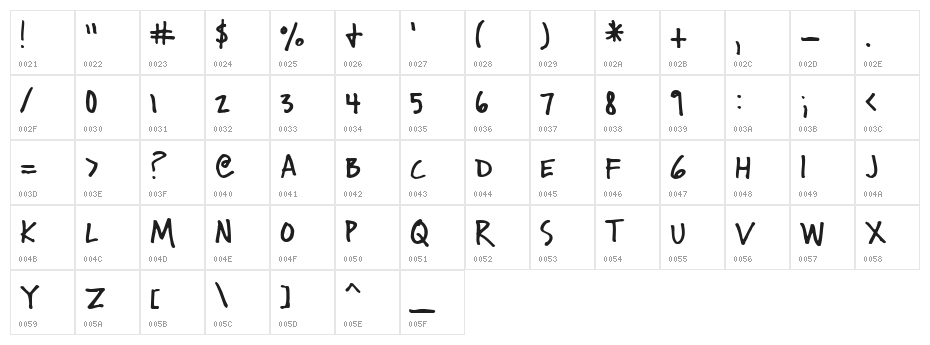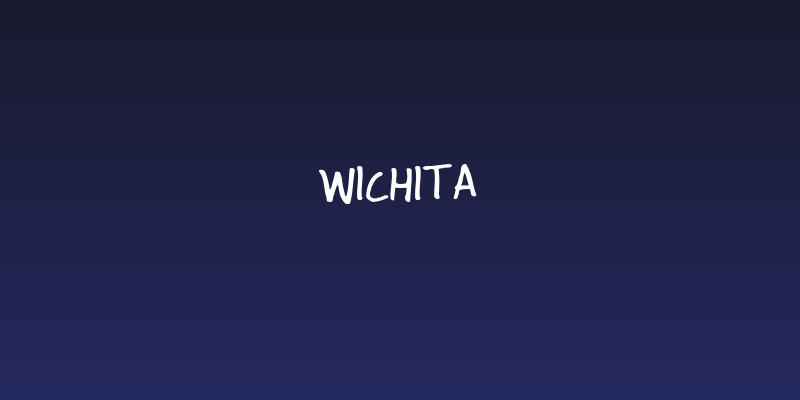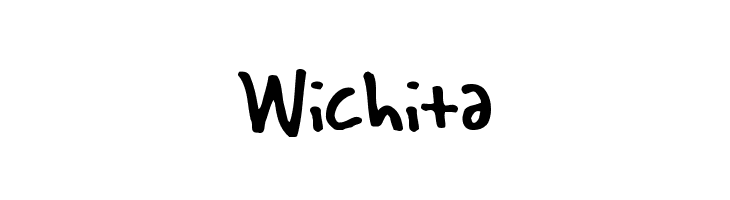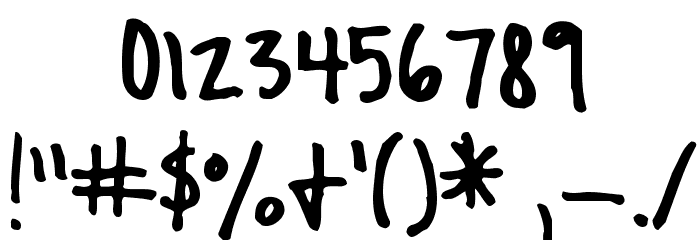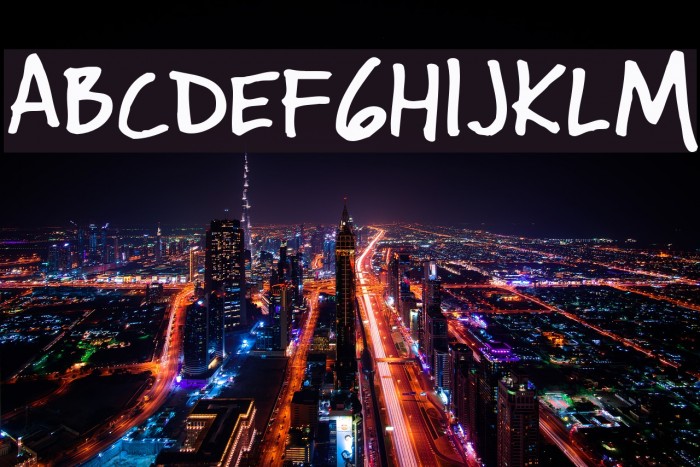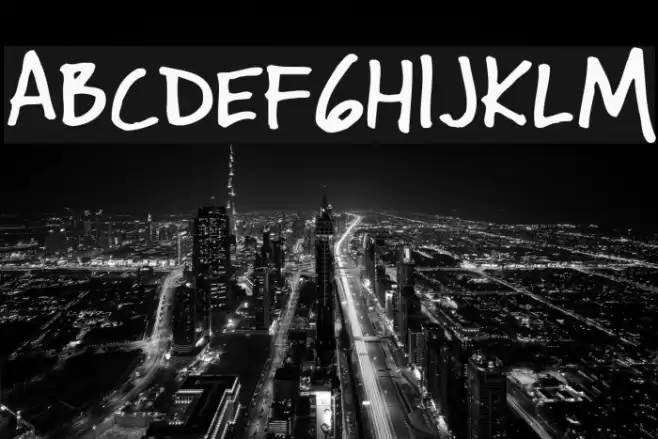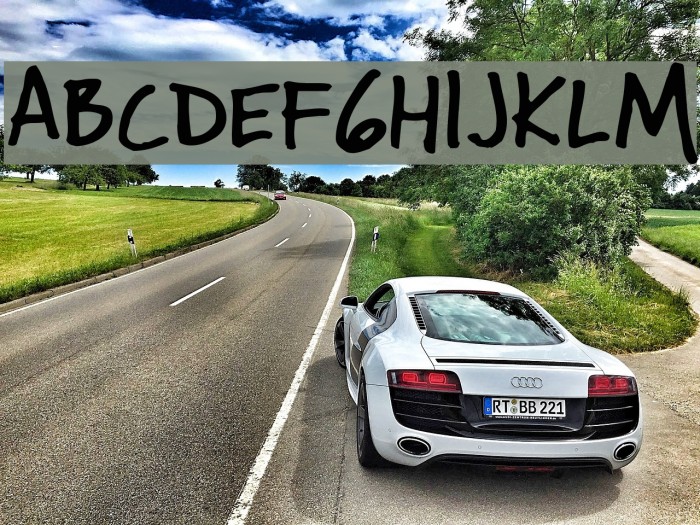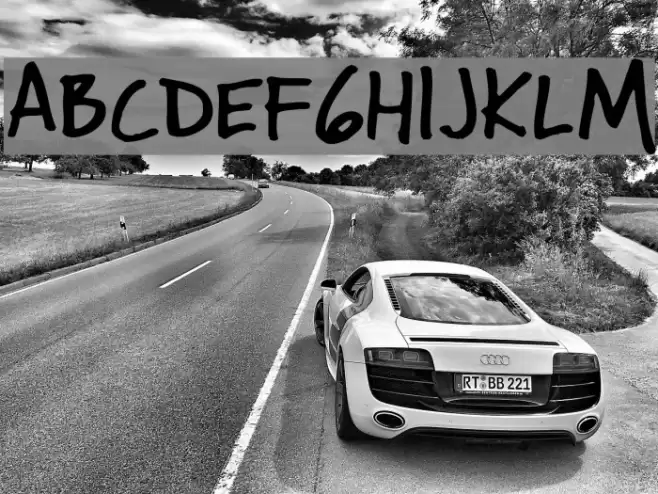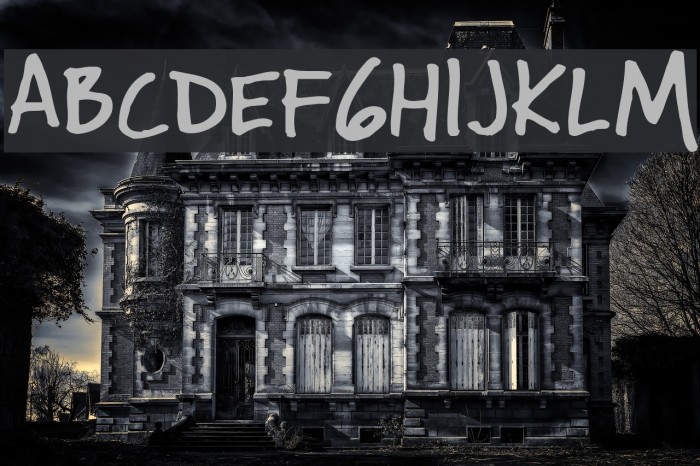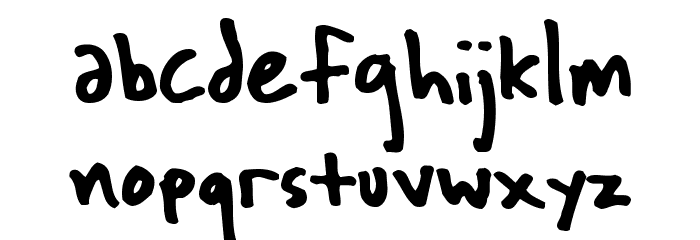
Wichita Font
Wichita Description
This font exhibits a casual, handwritten style with a playful and informal appearance. The letters are slightly irregular, mimicking the natural flow of handwriting. The uppercase and lowercase characters are well-balanced, with a consistent stroke width that adds to its approachable feel. The numbers and special characters maintain the same handwritten aesthetic, ensuring uniformity across all glyphs. This font's charm lies in its simplicity and the personal touch it conveys, making it ideal for projects that require a human element.
| Overall Style | Casual |
| Use Case | Logos, Invitations, Greeting Cards |
| Proposed Projects | Great for personal notes, invitations, greeting cards, and informal branding. |